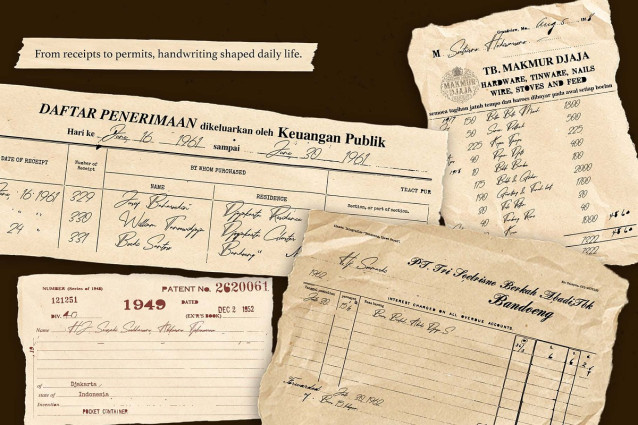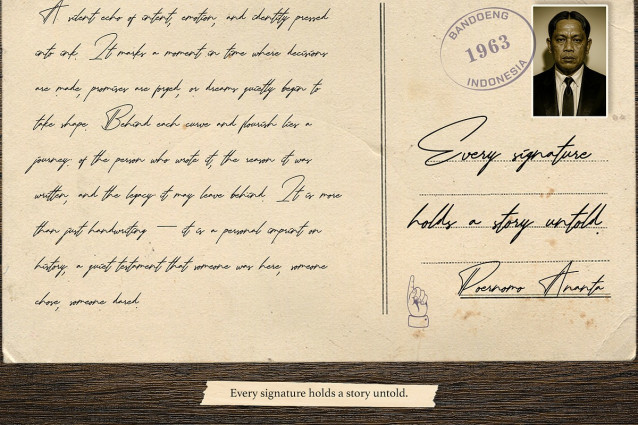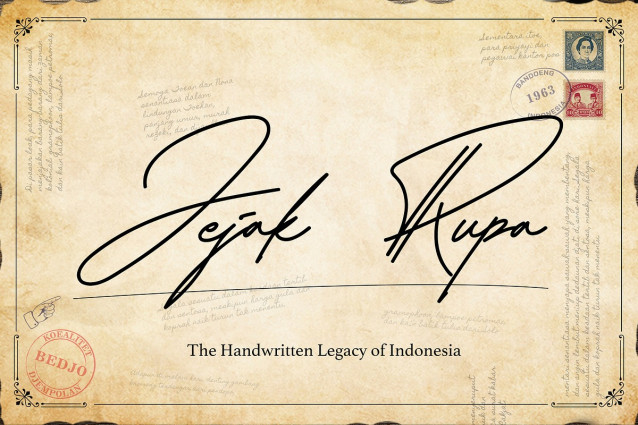
Jejak Rupa Font
Jejak Rupa Font is a nostalgic script font inspired by handwritten letters, notes, and signatures from Indonesia’s past. It captures the warmth of old paper, the elegance of cursive ink, and the deep emotional heritage of handwritten stories. Crafted with a vintage soul and local flavor, Jejak Rupa brings timeless character to every design it touches.